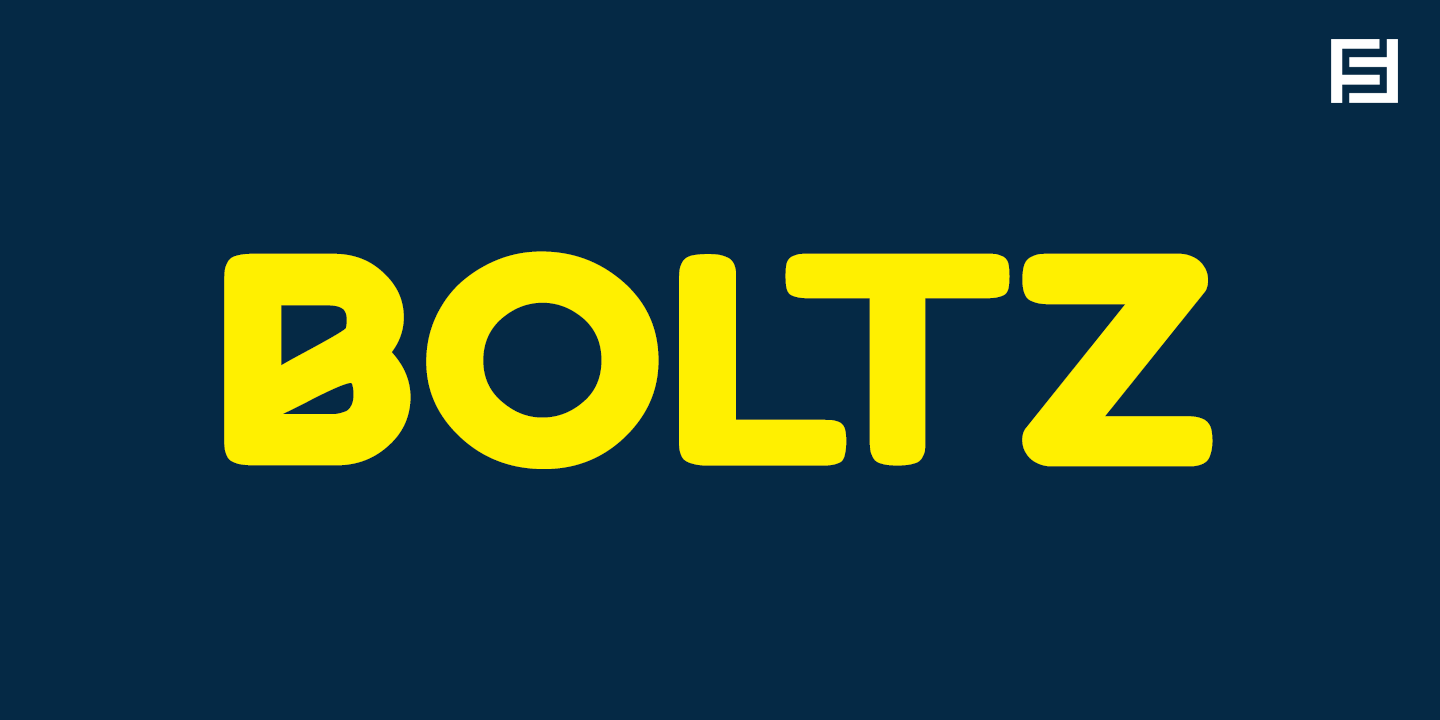
Boltz Font is a dynamic and versatile typeface, perfect for a myriad of creative applications where impact and energy are key. Imagine it on the cover of an action-packed video game, enhancing the visual appeal of a sports brand's marketing campaign, or making a strong statement in concert posters and event flyers. It's an excellent choice for bold headlines, captivating social media banners, energetic product packaging, and modern apparel designs. Its robust character and clear legibility also make it suitable for app interfaces and digital advertisements where immediate visual recognition is crucial. Whether you're aiming for a futuristic vibe or a powerful, industrial feel, Boltz Font delivers.
What makes Boltz Font particularly exciting is its electrifying presence and distinctive personality. It carries an inherent sense of speed and power, making it incredibly effective for designs that need to convey motion, strength, or innovation. The sharp angles and unique letterforms give it a cutting-edge aesthetic that stands out from more conventional typefaces. Designers are often drawn to Boltz Font because it effortlessly infuses a sense of excitement and urgency into their work, capturing attention and leaving a lasting impression. It's a font that doesn't just display text; it amplifies your message with a jolt of visual energy.
The Boltz Font family is typically designed to offer a range of weights that enhance its versatility across different design needs. Common family members might include a powerful Bold, a more balanced Regular, and potentially a lighter weight for subtle variations or even an Italic version to add a dynamic slant. These variations allow designers to create depth and hierarchy within their compositions, ensuring that Boltz Font can be effectively utilized for both primary headlines and supportive text elements, all while maintaining its characteristic impact and legibility across various sizes and applications.